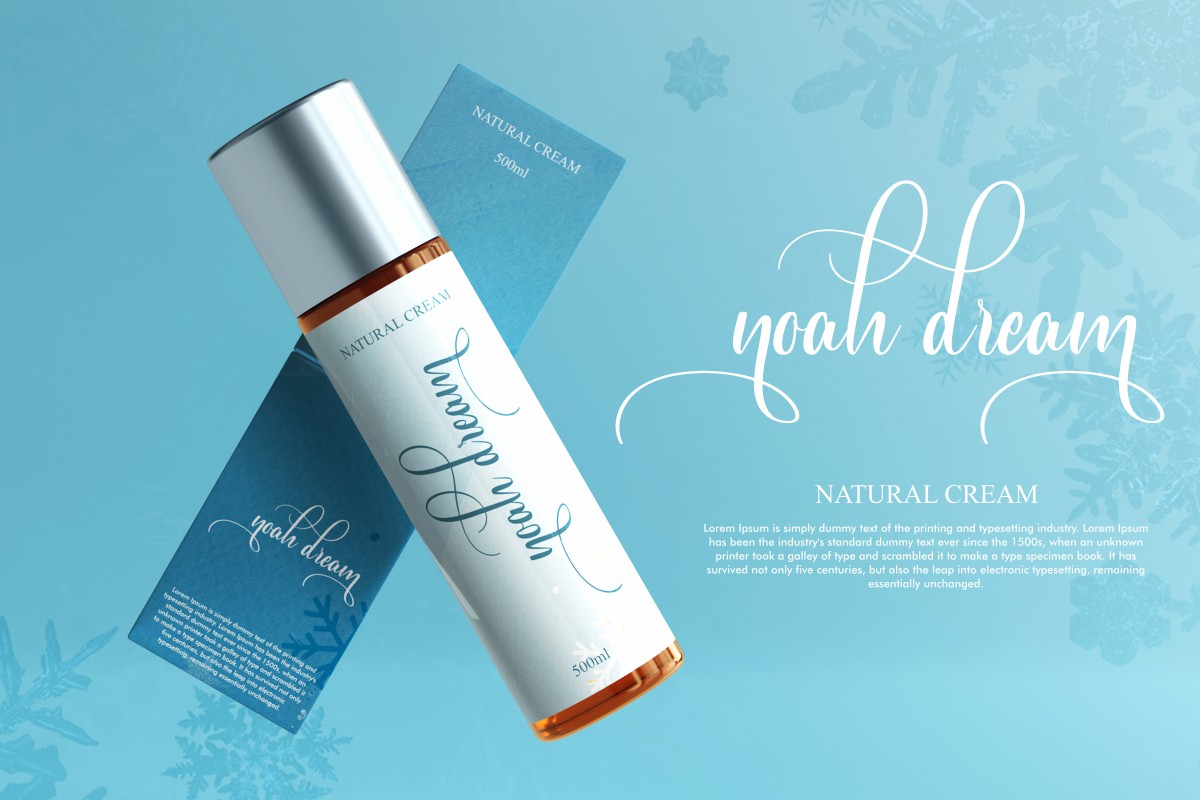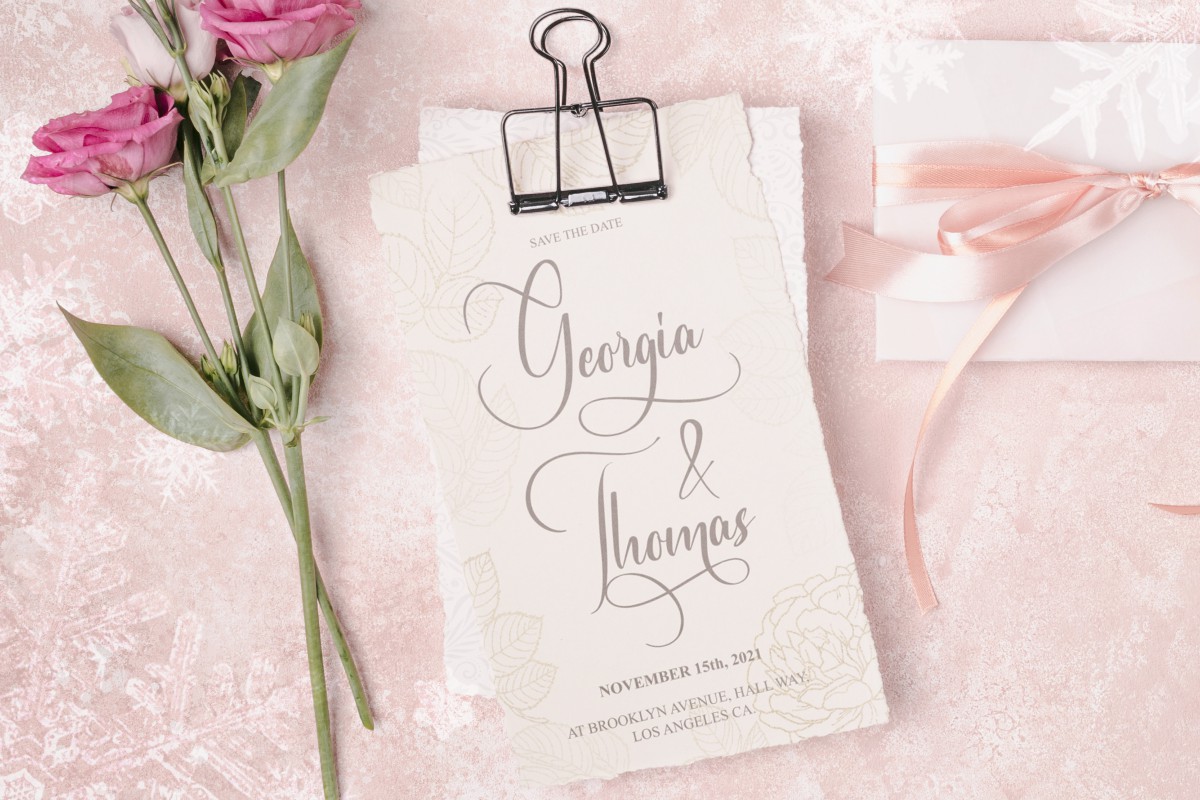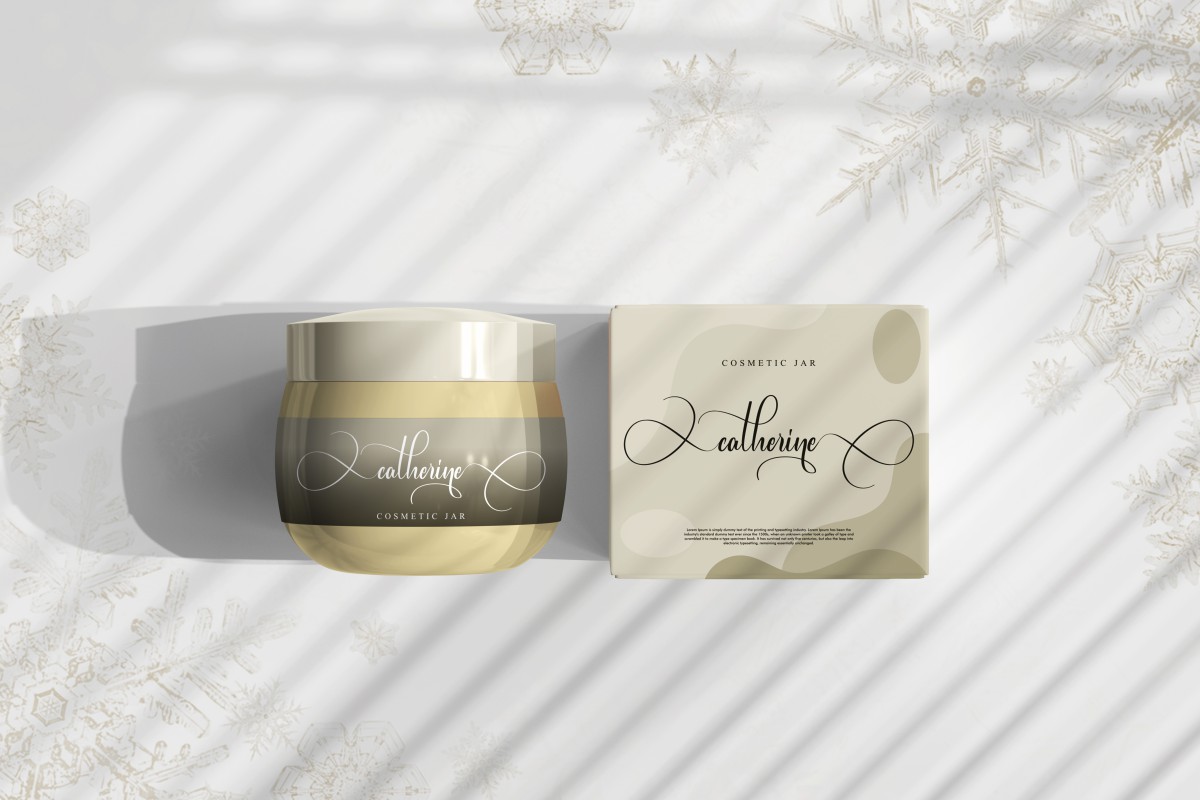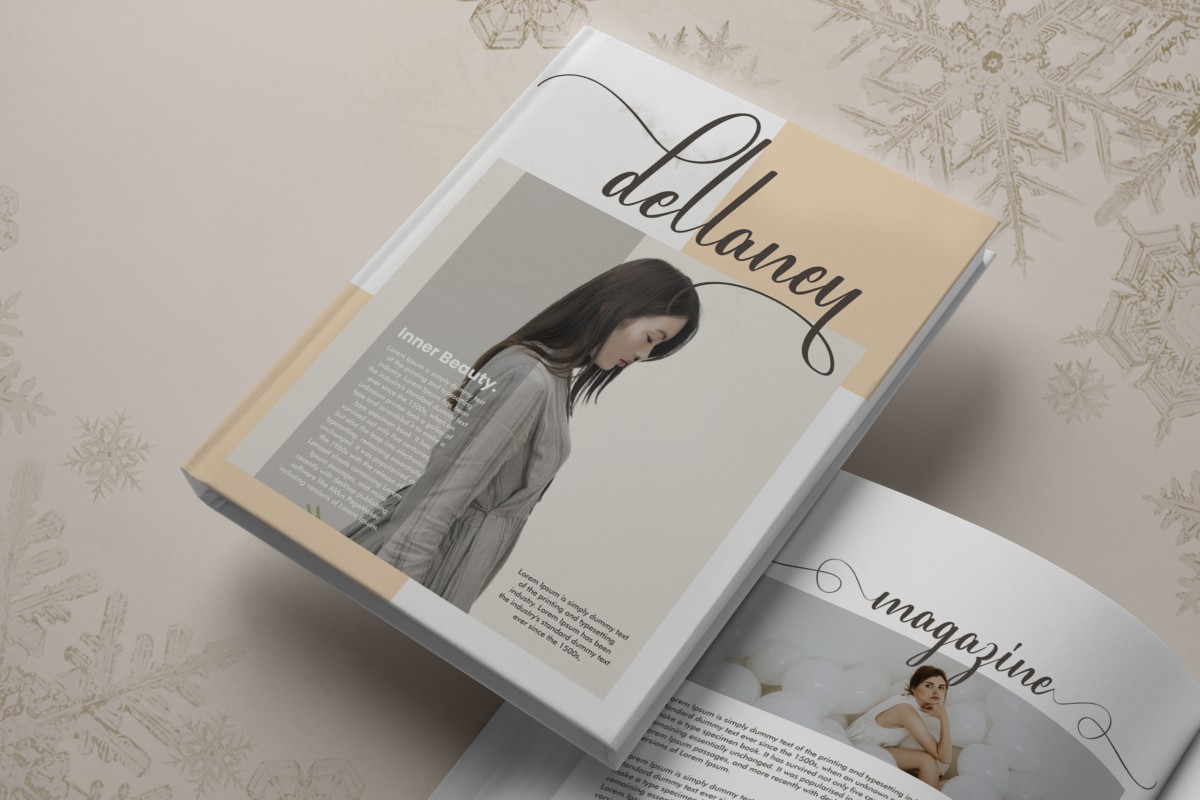
Early Winter Calligraphy Font
This is a stylish calligraphy font with exclusive ligatures and alternative characters. It has unique looks that are elegant, luxurious, lettering and sophisticated Calligraphic style. The font will be great for brandings, invitation, promotions, tittles, headlines etc